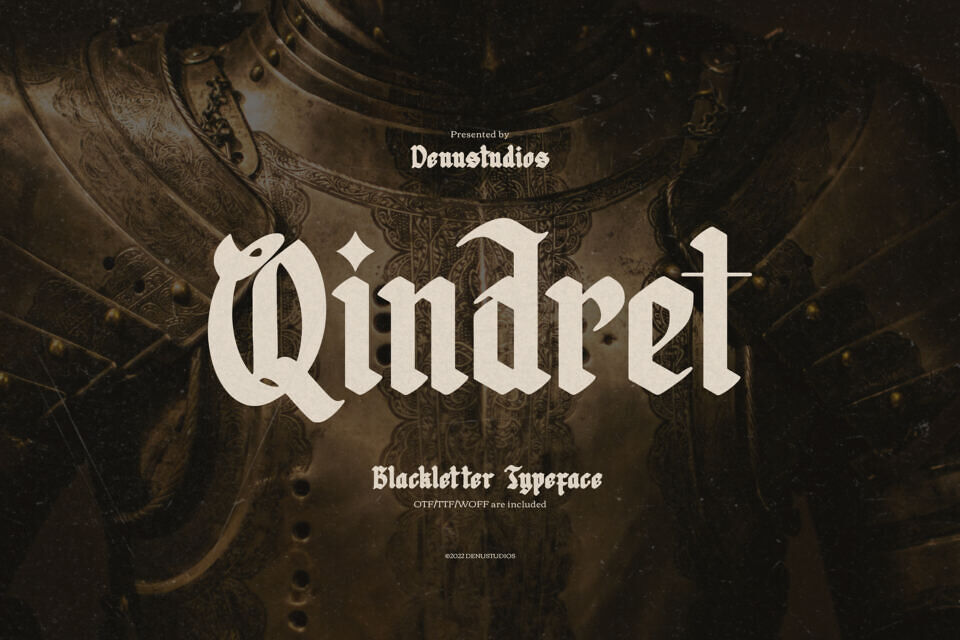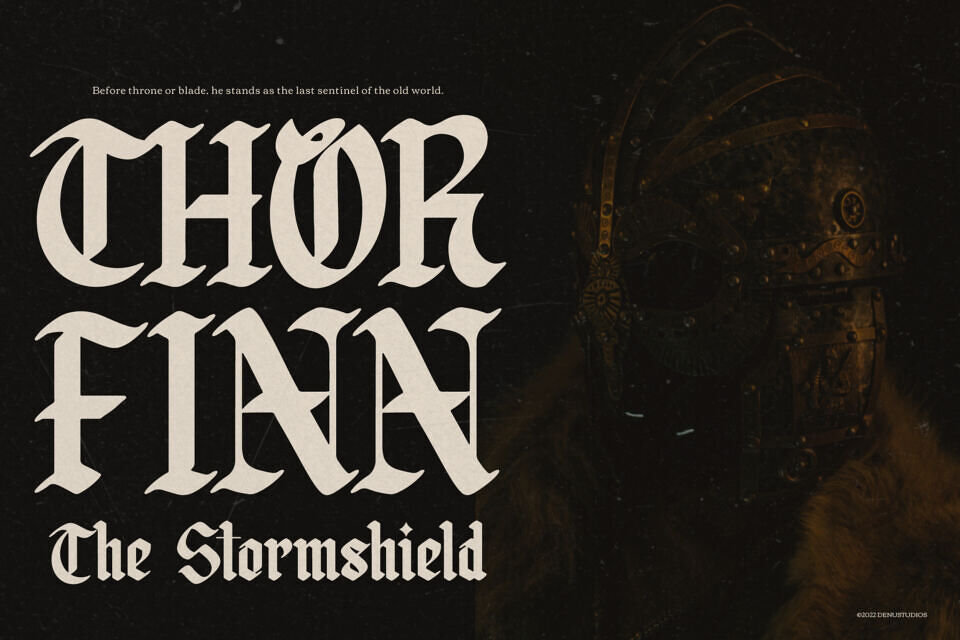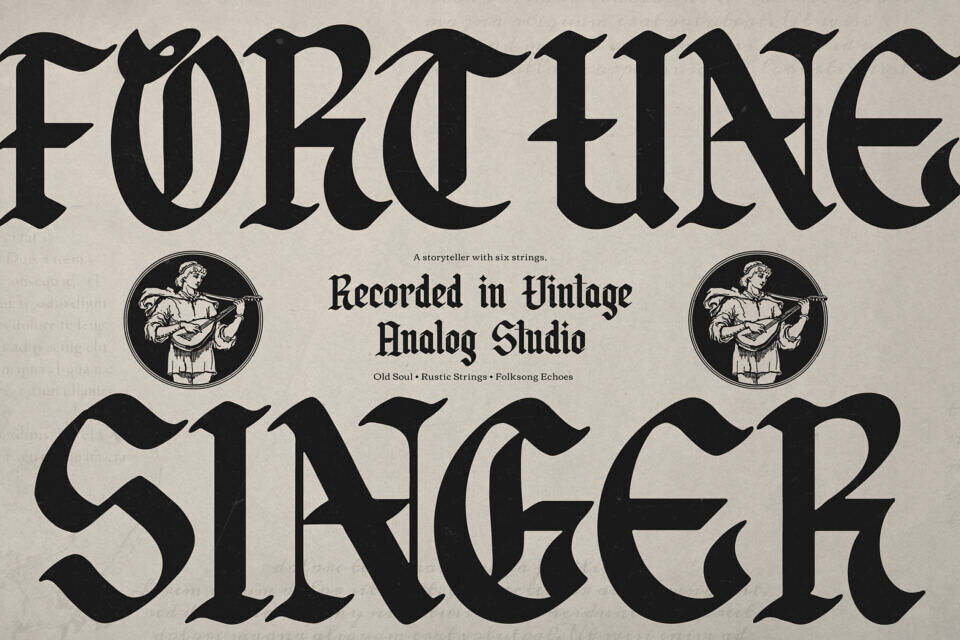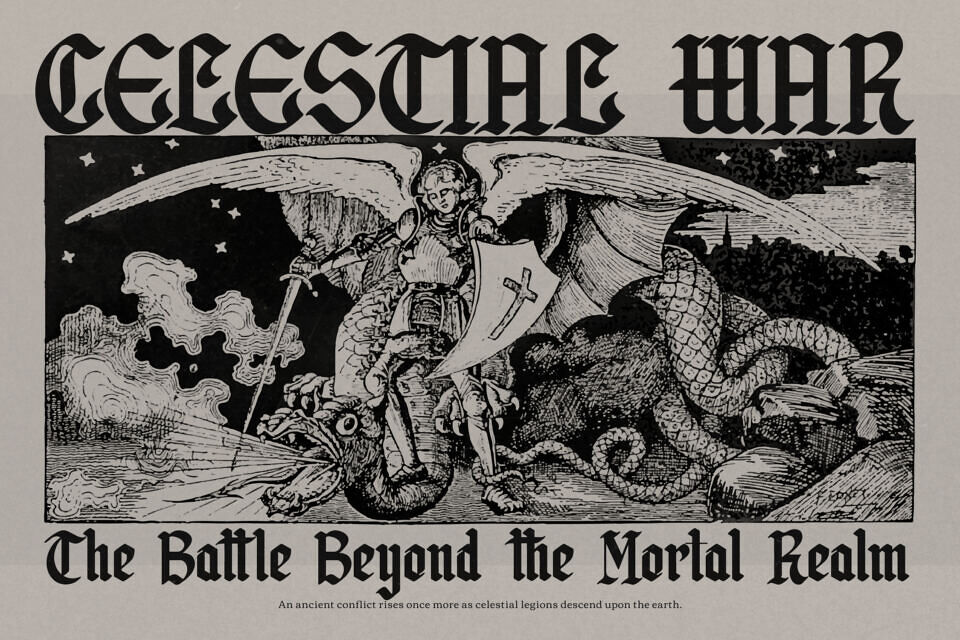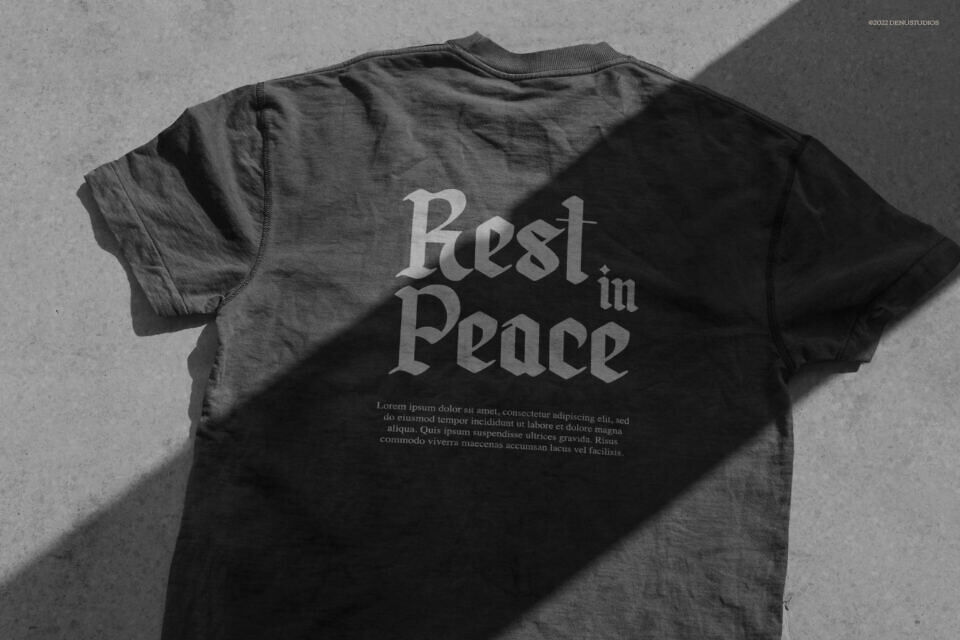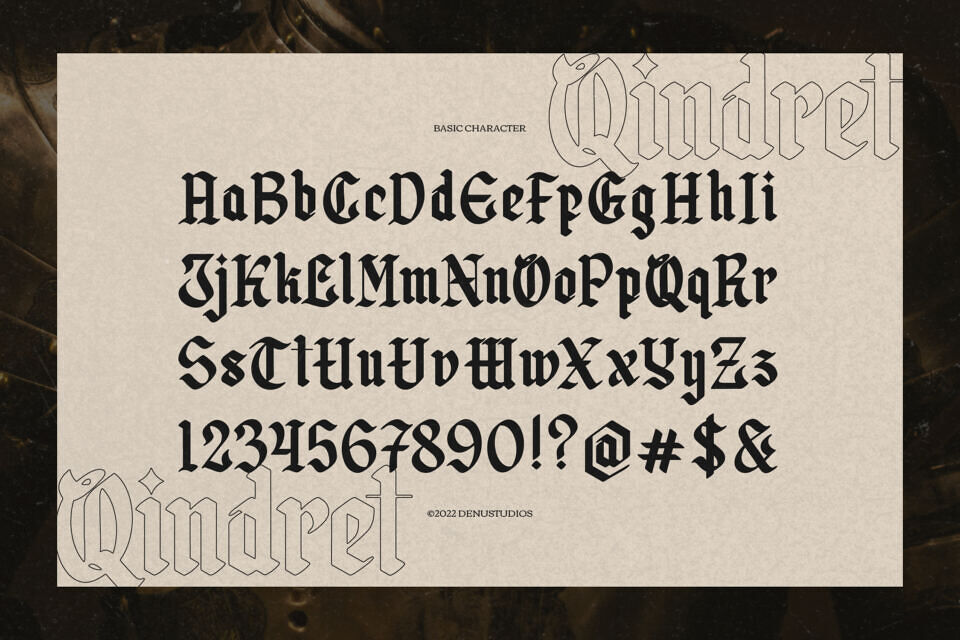
Qindret Font
Qindret is a magnificent blackletter typeface that pays homage to medieval calligraphy while offering a refined, modern aesthetic suitable for contemporary gothic and fantasy themes.
The font’s defining feature is its stunning contrast between thick, authoritative strokes and subtle, decorative serifs, giving it a strong, timeless, and commanding presence. Despite its historical roots, the Qindret typeface maintains excellent readability, making it a superb choice for impactful branding, merchandise, gaming logos, and high-end editorial work where a sense of grandeur and dark majesty is desired.